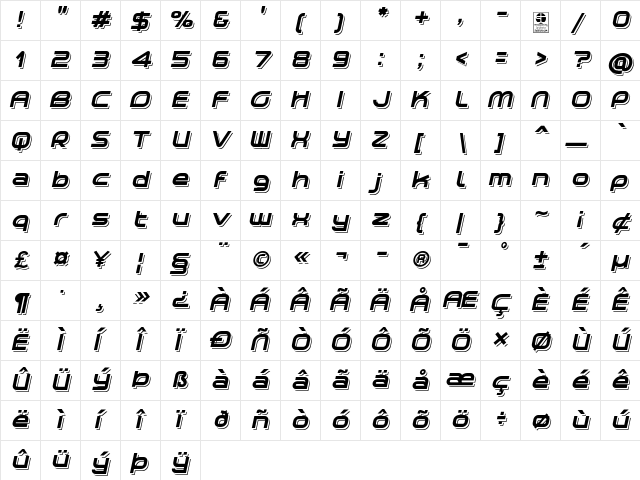
Planetium-X Shadowed Italic Demo Regular Font Preview
| Foundry | StudioTypo |
| Designer | Mehmet Abac |
Design Context for Planetium-X Shadowed Italic Demo Typeface
Planetium-X Shadowed Italic Demo is built around its visual character rather than neutral utility — its distinctive forms are designed to make an impression at display sizes. The dynamic lean of this cut emphasises speed and emphasis in any layout.
Font Pairing: Pair with a clean neutral sans-serif for body copy to let Planetium-X Shadowed Italic Demo's character lead without overwhelming the composition.
Pro Tip: Treat Planetium-X Shadowed Italic Demo as the centrepiece of your typographic hierarchy. One strong heading set in a decorative face can carry an entire layout.